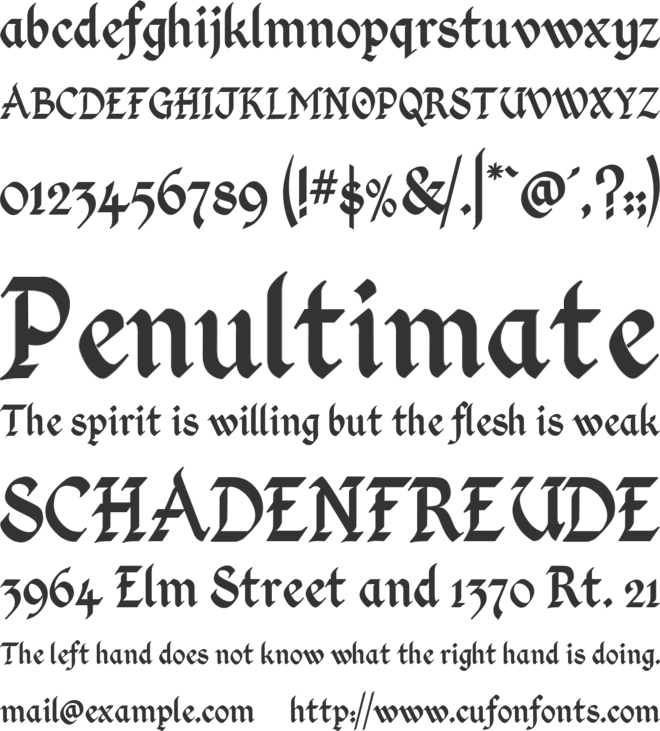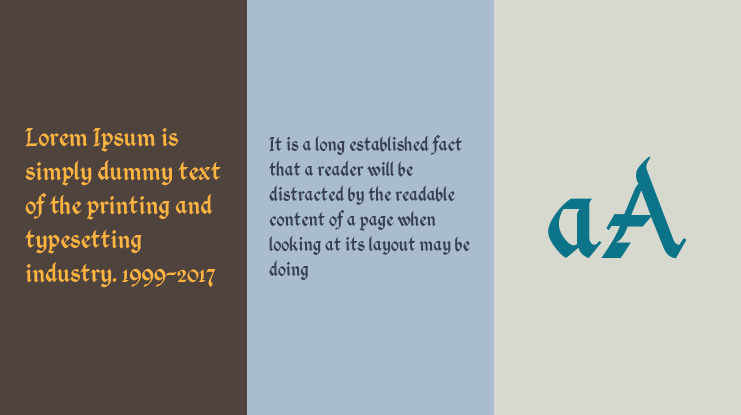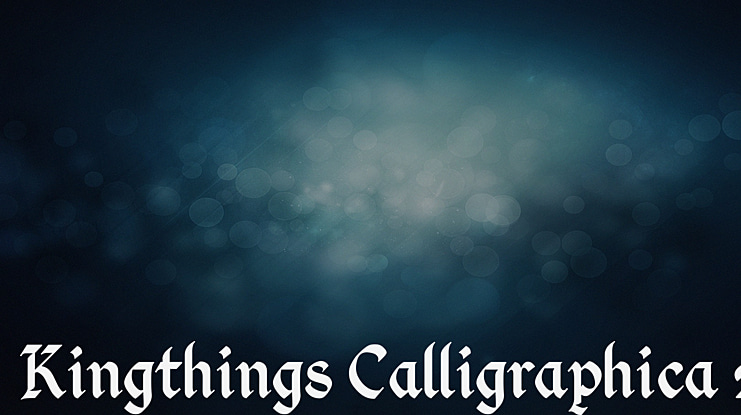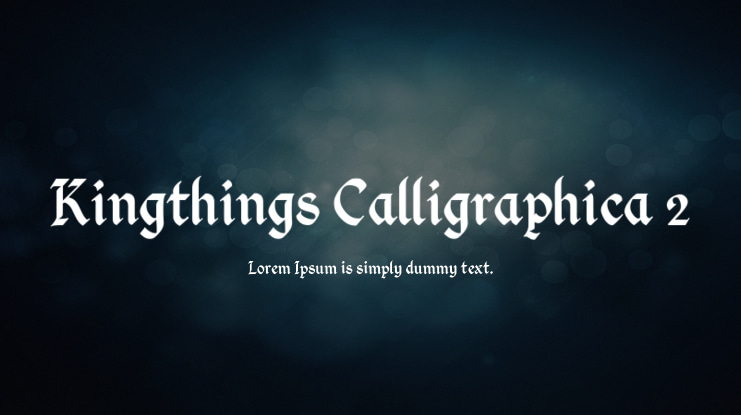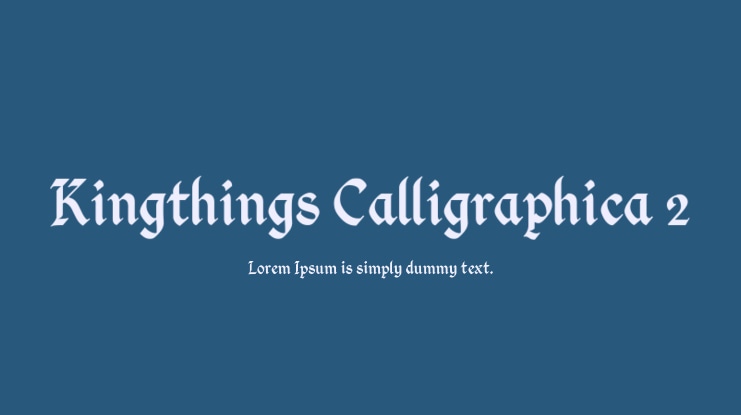
Kingthings Calligraphica 2 Font Family
Kevin King. December 2007
This font is based on letterforms I learned at school during Art A levels... Seems forever ago...It was!